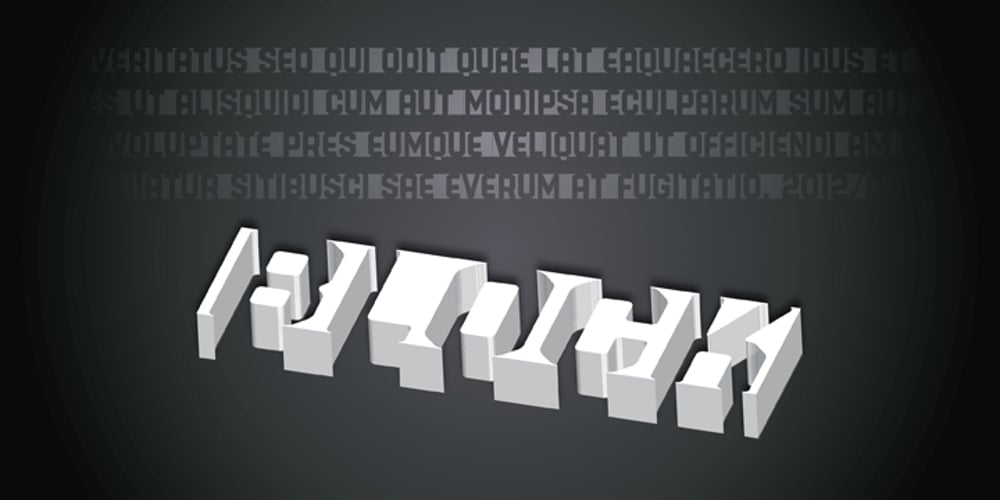
MD-Type Rounded
MD-Type Rounded font
MD-Type Rounded Font Family was designed by Mehmet Dogan and published by MD-Type. MD-Type Rounded contains 5 styles and family package options. MD-Type Rounded is a modern, stylish font family. The family consists of five fonts (Regular, Bold, Light, Block, Black) which are formed by all capital letters. The strong and accented letters were rounded on the corners and therefore softened. The font family supports Turkish language as well.